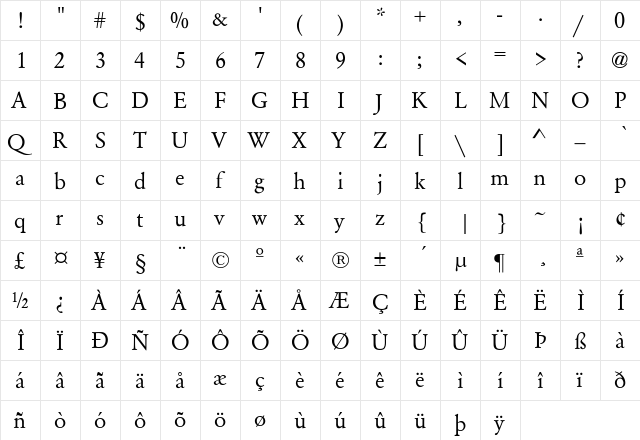
Garamon Regular
Design Context for Garamon Typeface
Garamon takes a measured approach to typography — its balanced proportions and neutral character make it a reliable workhorse for both digital and print work.